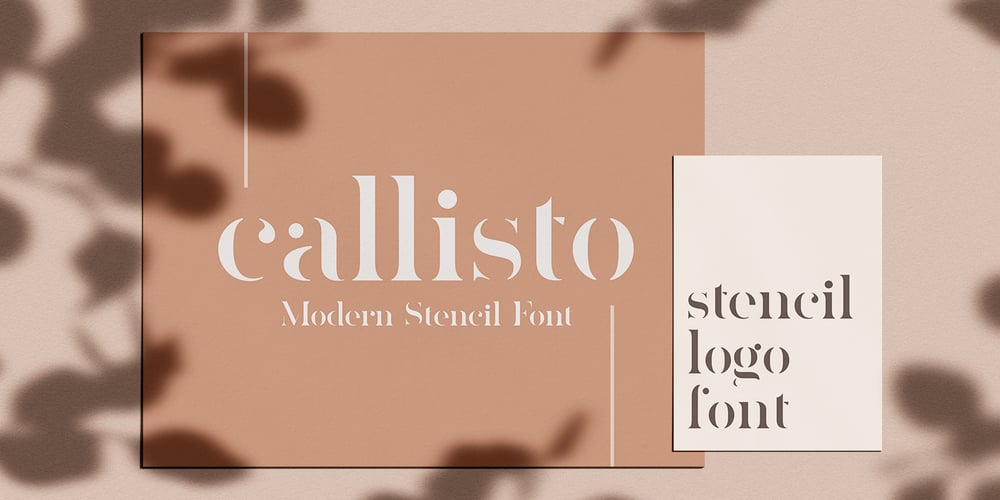
Callisto Font Family was designed by Eugene Tantsurin and published by Groteskly Yours. Callisto contains 2 styles and family package options. Callisto is a classic serif stencil typeface. Elegant curves are paired with great legibility and wide range of available glyphs. While stencil fonts are generally thought of as too masculine and rough, Callisto is very feminine and soft, which makes it perfect as a logo font for those who seek to further emphasize their brand’s identity. Despite being a display font, Callisto looks great at smaller sizes, so short headlines and headers will look natural and email legible even in smaller sizes. Callisto comes in two styles —Regular and Half —which can easily be combined within the same body of text. Regular is a more minimal style, with wider and more open apertures, while Half is a hybrid between a serif and stencil font that still has longer strokes and stems. Each style consists of 415 glyphs, ranging from fractions to diacritics. There are a number of glyphs with cool stylistic alternatives (which is awesome for branding), lots of punctuation and OpenType features. Callisto is a great font for designers and artists who need a feminine font with a really strong character.